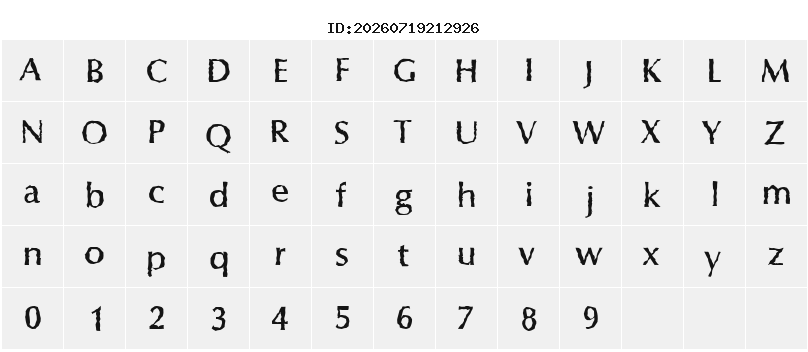
• Font Name: EricBeckerRandom-Medium
• Full Font Name: EricBeckerRandom-Medium-Regular
About EricBeckerRandom-Medium.ttf
EricBeckerRandom-Medium.ttf is a modern, elegant sans-serif font designed for ultimate readability and visual harmony. Perfect for branding, headlines, web design, and print materials.